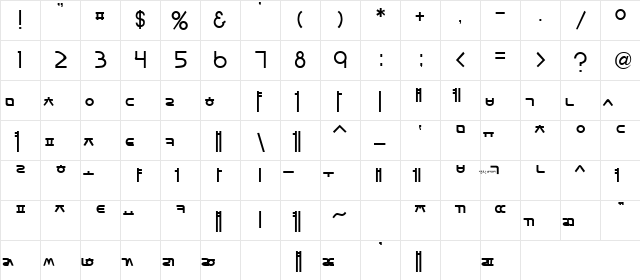
Sorawin Plain
Design Context for Sorawin Typeface
Sorawin offers clean, dependable letterforms without strong stylistic allegiance, making it a practical choice for designers who need flexibility.